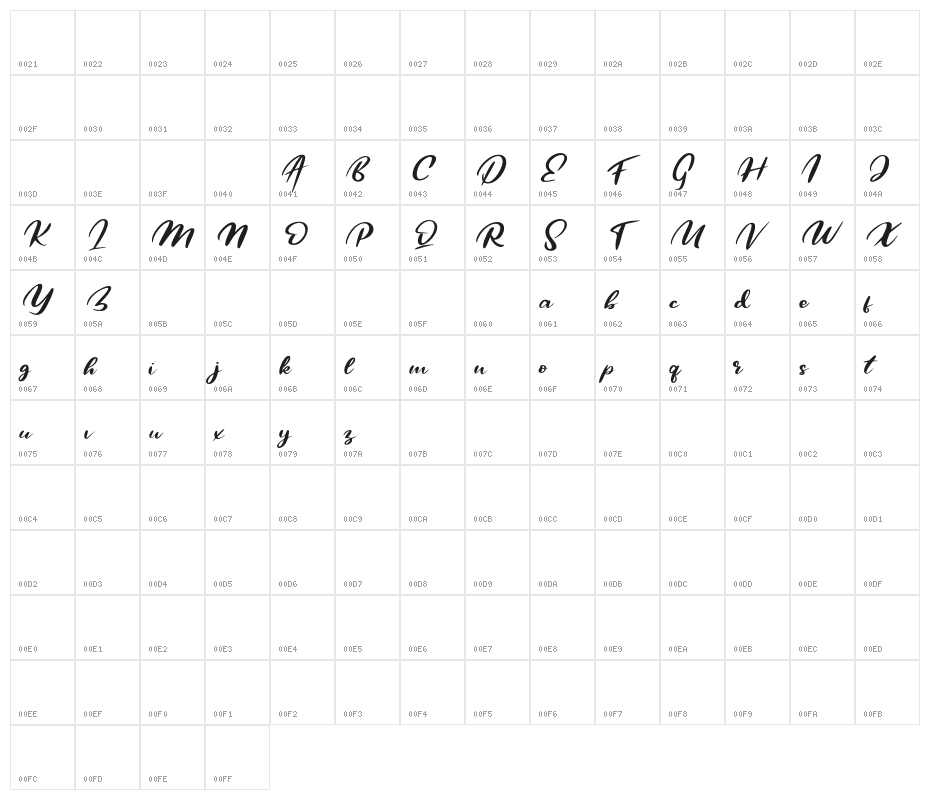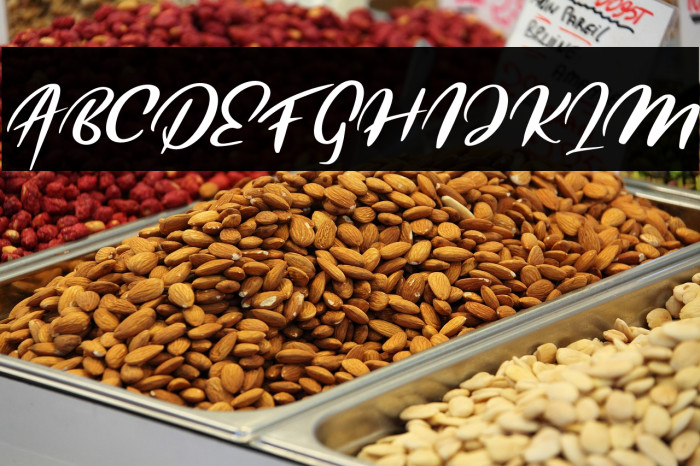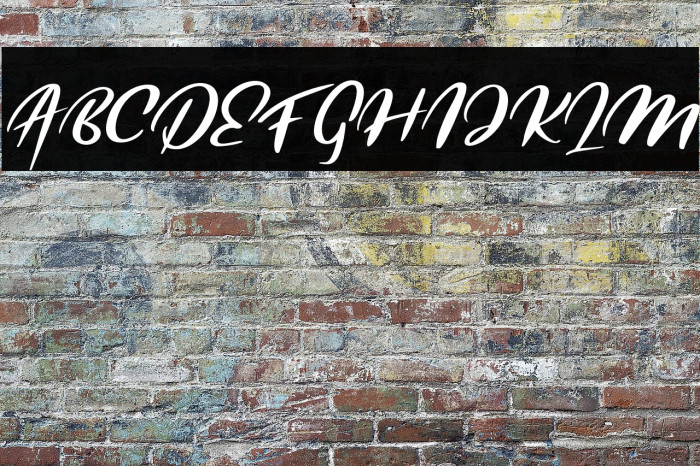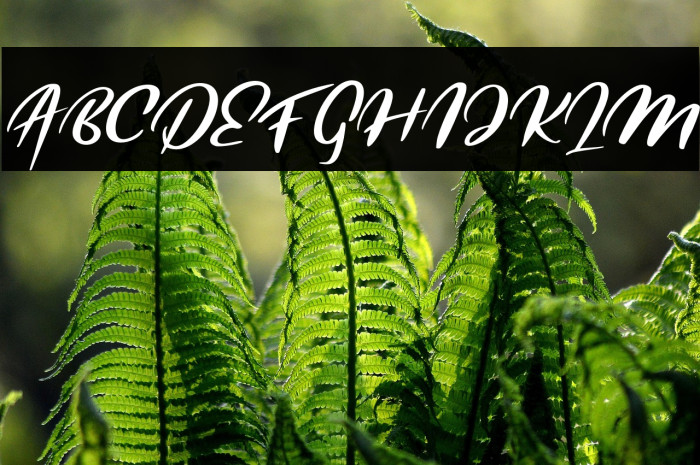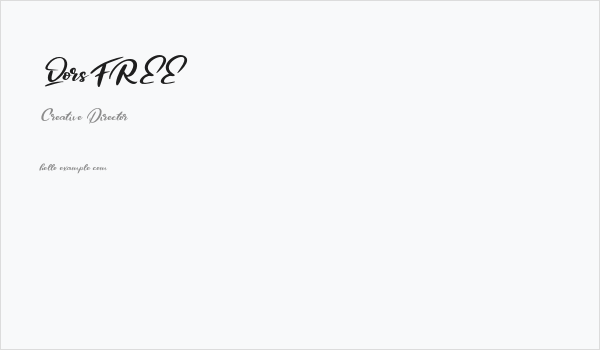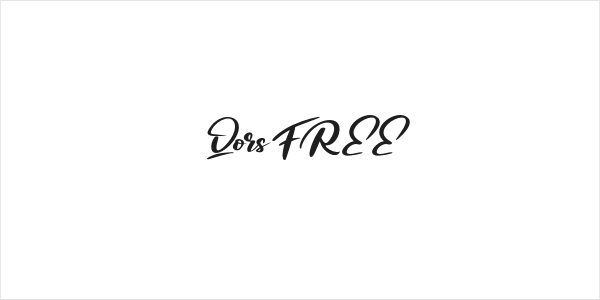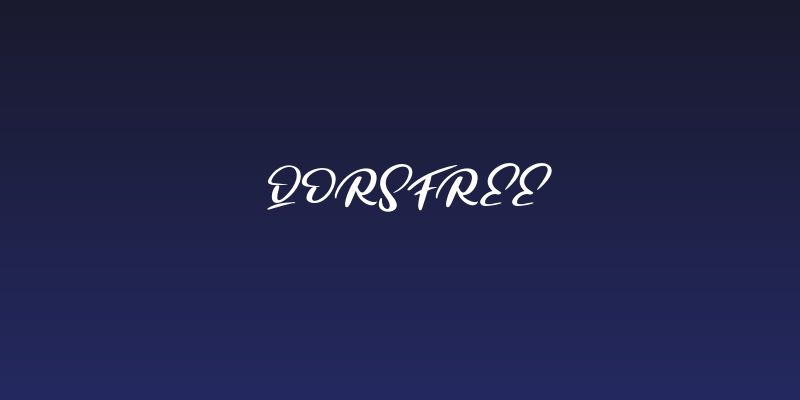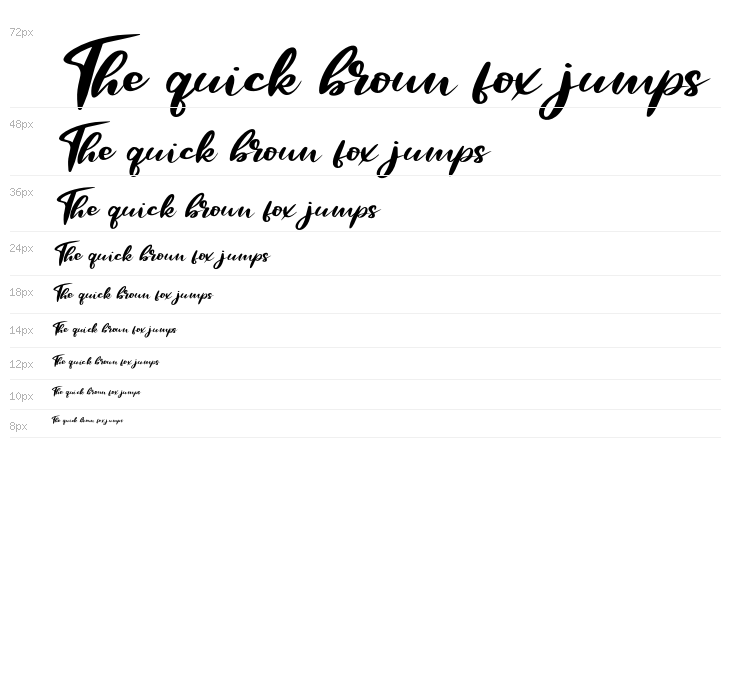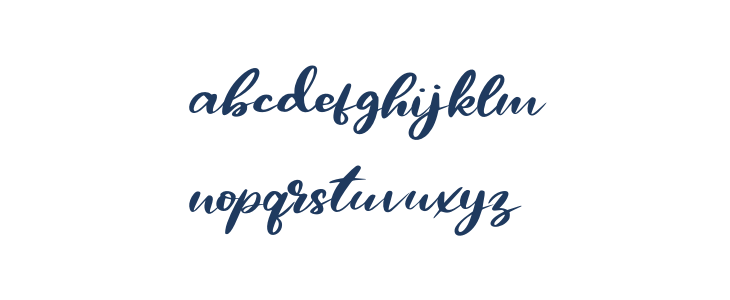
QorsFREE Font
QorsFREE Description
This font features a dynamic and flowing script style, characterized by its elegant and fluid strokes. The uppercase letters exhibit a graceful, sweeping motion with a slight slant, while the lowercase letters maintain a consistent rhythm and balance. The font's design is reminiscent of traditional calligraphy, with a modern twist that adds a touch of sophistication. The characters are well-spaced, allowing for readability while maintaining an artistic flair. This font is ideal for projects that require a personal and stylish touch, such as invitations, branding, and decorative elements.
| Use Case | Logos, Invitations, Decorative text |
| Proposed Projects | Ideal for wedding invitations, branding, greeting cards, and decorative designs. |